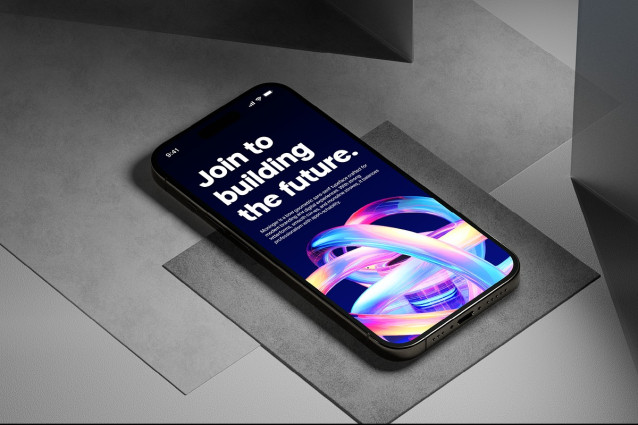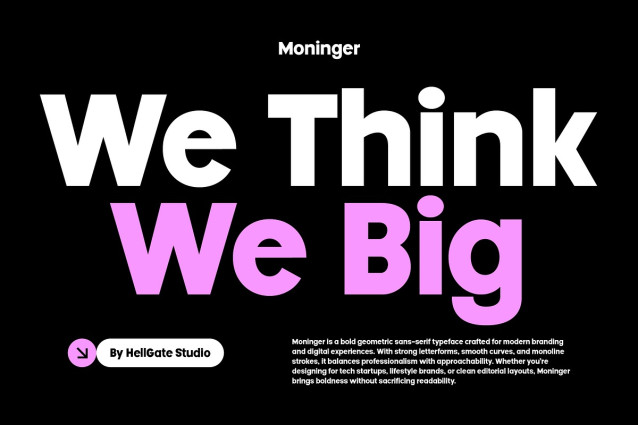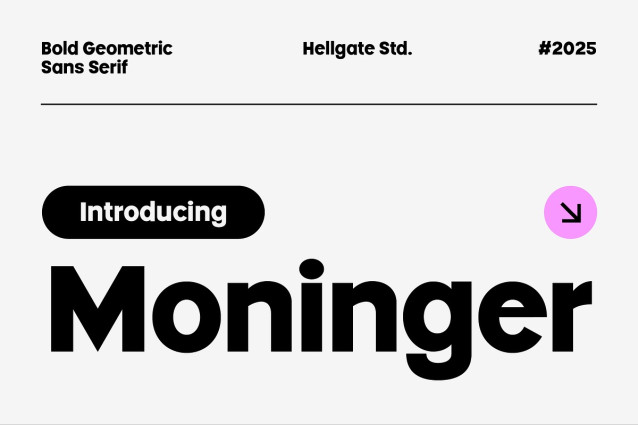
Moninger Font
Moninger Font – Geometric Sans Serif, harmoniously blending contemporary aesthetics with robust geometry. A perfect choice for the modern theme, Moninger invites readability and simplicity to your design canvas. Meticulously crafted, it allows for effortless text and color editing, empowering you to shape your creative vision. Included in your high-quality render is an OTF file, opening a world of versatility for your artistic endeavours with Moninger Geometric Sans Serif.